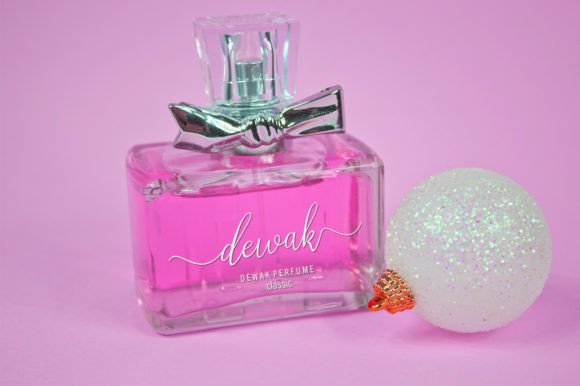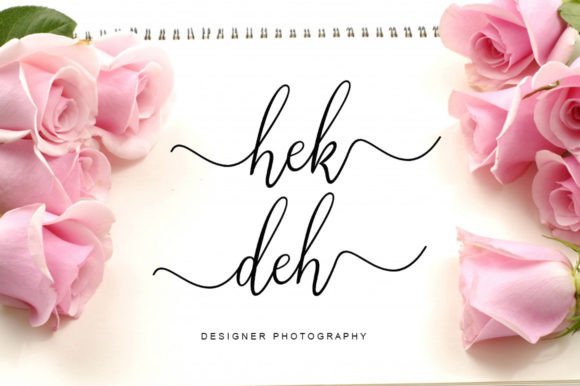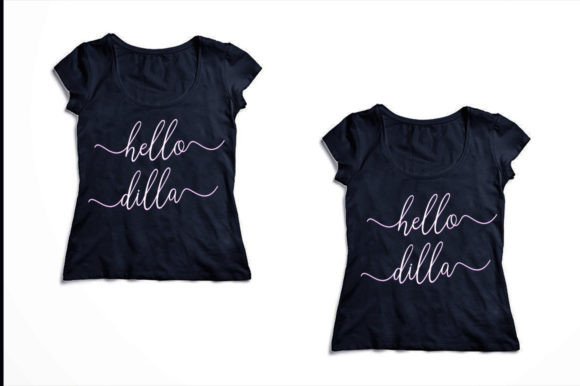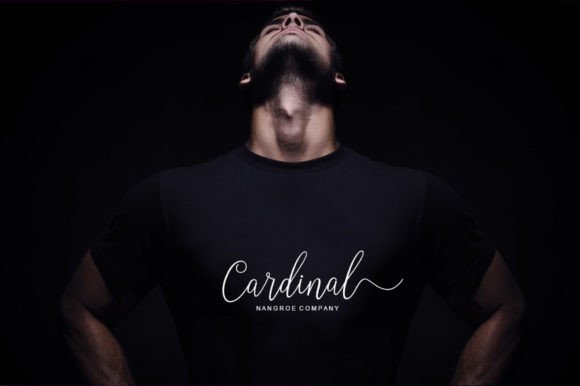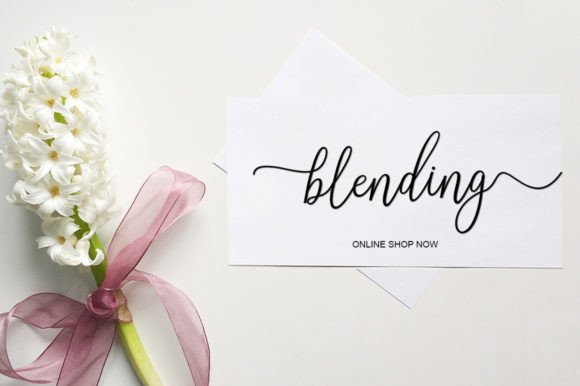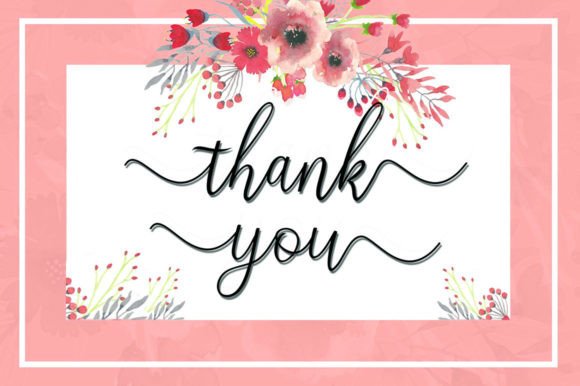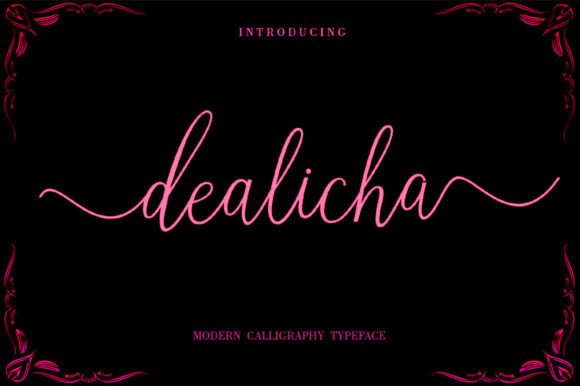
Introducing Dealicha Font: The Perfect Modern Script Font for Your Creative Projects
Are you a designer or crafter looking for a unique and trendy font to elevate your creative projects? Look no further than Dealicha Font, a modern script font that is sure to make a statement. With its irregular baseline and feminine charm, Dealicha is the perfect choice for a variety of applications, from wedding invitations and thank you cards to quotes, greeting cards, logos, business cards, and more.
What Makes Dealicha Font So Special?
Dealicha Font is a modern script font that boasts a unique and eye-catching design. Its irregular baseline gives it a playful and organic feel, making it perfect for projects that require a touch of whimsy and personality. The font’s trendy and feminine aesthetic makes it ideal for designers and crafters who want to add a touch of elegance and sophistication to their work.
The Perfect Font for Wedding and Event Stationery
Dealicha Font is particularly well-suited for wedding and event stationery, such as invitations, thank you cards, and greeting cards. Its elegant and refined design makes it perfect for formal events, while its playful and irregular baseline adds a touch of whimsy and romance. Whether you’re designing a wedding invitation, a baby shower card, or a graduation announcement, Dealicha Font is sure to make your project stand out.
Why Designers and Crafters Love Dealicha Font
Designers and crafters love Dealicha Font for its versatility and ease of use. The font is perfect for a variety of creative projects, from digital designs to handcrafted items. Its unique and eye-catching design makes it a great choice for designers who want to add a touch of personality to their work, while its irregular baseline and feminine charm make it perfect for crafters who want to add a touch of elegance and sophistication to their handmade items.
Using Dealicha Font in Your Creative Projects
Dealicha Font is perfect for using in a variety of creative projects, including:
- Wedding invitations and event stationery
- Thank you cards and greeting cards
- Quotes and inspirational sayings
- Ink and watercolor designs
Tips for Getting the Most Out of Dealicha Font
To get the most out of Dealicha Font, here are a few tips to keep in mind:
- Use Dealicha Font in combination with other fonts to create a unique and eye-catching design
- Use Dealicha Font in digital designs, such as social media graphics and blog posts, to add a touch of personality and elegance
- Pair Dealicha Font with images and illustrations to create a visually appealing design
Dealicha Font is a modern script font that is sure to elevate your creative projects to the next level. With its irregular baseline and feminine charm, Dealicha is the perfect choice for designers and crafters who want to add a touch of elegance and sophistication to their work. Whether you’re designing wedding invitations, greeting cards, or logos, Dealicha Font is the perfect choice for any project that requires a touch of personality and whimsy.
- What type of font is Dealicha Font? Dealicha Font is a modern script font with an irregular baseline.
- What is Dealicha Font best used for? Dealicha Font is best used for wedding invitations, thank you cards, quotes, greeting cards, logos, business cards, and more.